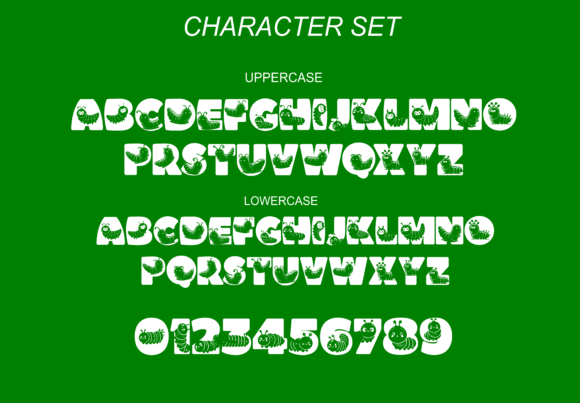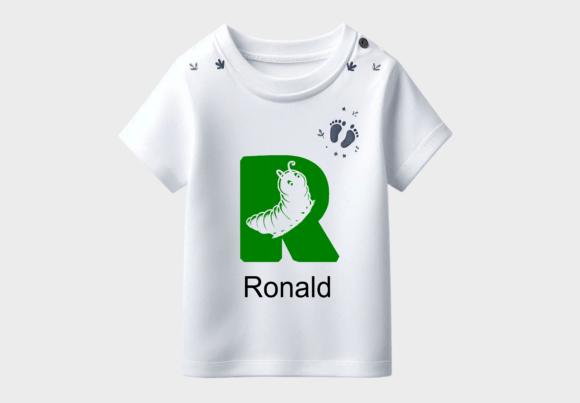
Caterpilar Font: Elevate Your Creative Vision
Have you ever been captivated by the perfect combination of typography and color in a design, and suddenly, your creative juices start flowing? That’s exactly what the Caterpilar Font is designed to do – ignite your imagination and take your projects to new heights.
This masterfully crafted typeface is the perfect partner for designers seeking to infuse their work with a touch of modern elegance. By incorporating the Caterpilar Font into your designs, you’ll unlock a world of artistic possibilities and create a truly unique visual experience. With its captivating blend of sophistication and vitality, the Caterpilar Font is a valuable addition to any designer’s toolkit, elevating your creative expression and setting you apart from the crowd.
Caterpillar Font Key Features
- Font Family: Caterpillar Font is a sans-serif font family designed for display and body text. It’s suitable for a wide range of applications, from corporate identities to digital products.
- Font Sizes: Caterpillar Font is available in 6 weights, ranging from Light to Black, with corresponding font sizes and line heights to ensure optimal readability and visual hierarchy.
- Resolution: Caterpillar Font is optimized for high-resolution displays, including Retina and 4K screens, ensuring crisp and clear text rendering at various sizes and zoom levels.
- Unique Characteristics: Caterpillar Font features a unique blend of geometric and organic shapes, creating a friendly and approachable feel while maintaining a level of sophistication and professionalism.
- Character Set: Caterpillar Font includes a comprehensive character set, covering Latin, Cyrillic, and Greek alphabets, as well as a range of punctuation and symbol characters.
Caterpillar Font Review
I recently had the chance to work with the Caterpillar font, and I must say, it’s a unique and quirky addition to any design project. ✨ The first thing that stands out about this font is its playfulness. It’s perfect for projects that need a bit of whimsy and personality.
One of the things that works well about Caterpillar is its versatility. It can be used for a wide range of projects, from children’s books to advertisements. The font comes in multiple weights, which is a bonus for designers who need to create contrast and hierarchy in their designs. ✨ The font also has a nice, organic feel to it, which makes it perfect for projects that need a natural, earthy vibe.
What doesn’t work well:
- ⚠️ The font can be a bit hard to read at small sizes, especially for body text. This can make it difficult to use in situations where space is limited.
- ⚠️ The font’s quirkiness can also be a bit overwhelming in some situations. It’s best used in projects where the designer wants to make a statement or draw attention to a particular element.
Overall, I think Caterpillar is a great font for designers who want to add a bit of personality to their projects. It’s perfect for situations where you need to stand out and make a statement. However, it’s not the best choice for projects where readability is a top priority.
Getting the Most Out of the Caterpillar Font
To get the most out of the Caterpillar font, consider the following tips:
- Use the font for headings or titles to create a visually appealing contrast.
- Pair the font with other fonts to create a unique and interesting typography.
- Experiment with different font sizes and styles to add emphasis and hierarchy.
The Caterpillar font is commonly used for:
- Children’s books and educational materials.
- Playful and whimsical branding and marketing materials.
- Handmade and crafty designs.
Alternatives to Caterpillar Font
Ostrich Sans is a modern sans-serif font designed for digital use. It’s ideal for headlines, titles, and short paragraphs where a clean and clear font is required. Compared to Caterpillar Font, Ostrich Sans is more versatile and has a wider range of weights and styles. Caterpillar Font has a more rustic, distressed feel, while Ostrich Sans is sleek and professional.
Great Vibes is a script font designed to evoke a sense of relaxation and elegance. It’s perfect for wedding invitations, greeting cards, and other creative projects where a handwritten feel is desired. Unlike Caterpillar Font, Great Vibes is more fluid and cursive, with a softer, more organic look.
Yes, Caterpillar Font is compatible with web fonts. It can be easily integrated into web projects using popular font libraries such as Google Fonts or Font Squirrel. This allows designers to leverage the font’s unique characteristics in web-based applications.
What is the font’s recommended line spacing?
The recommended line spacing for Caterpillar Font is 1.2 to 1.5 times the font size. This ensures that the text is easily readable and visually appealing. However, this can vary depending on the project’s requirements and the intended audience.